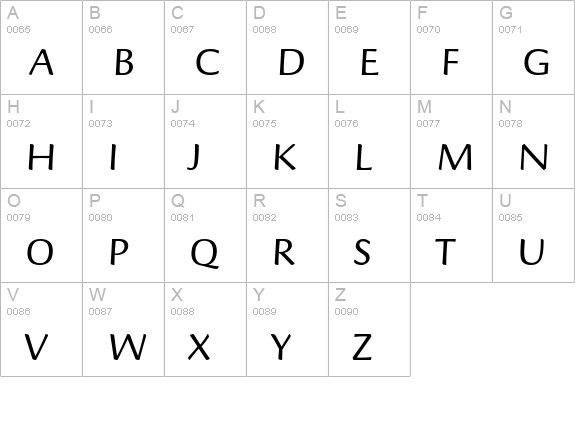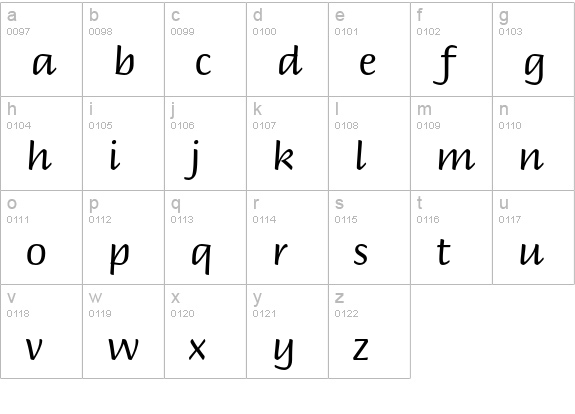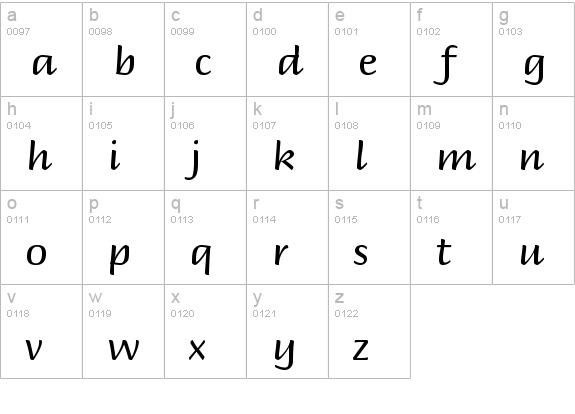
Briem Script Std is a stunning and elegant font that exudes sophistication and charm. With its graceful curves and flowing lines, this font is perfect for adding a touch of elegance to any project. Whether you're designing wedding invitations, creating branding materials, or crafting a beautiful logo, Briem Script Std is sure to make a lasting impression. What sets Briem Script Std apart is not only its beauty but also its versatility. This font is suitable for a wide range of design projects, from formal events to contemporary branding. Its classic yet modern style makes it a timeless choice for any design endeavor. And the best part? Briem Script Std is completely free to download at FontsMarket.com. So you can easily access this gorgeous font and elevate your designs without breaking the bank. Whether you're a seasoned designer or just starting out, Briem Script Std is a must-have addition to your font collection. Start using this exquisite font today and watch your designs come to life with elegance and sophistication.